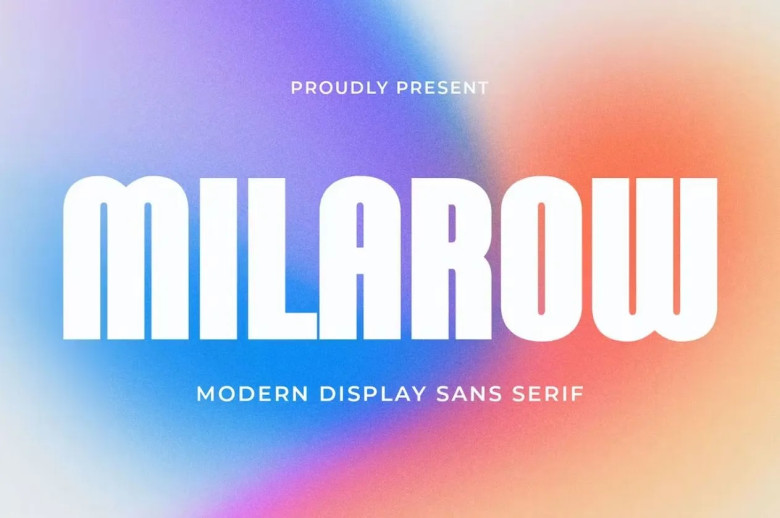
Milarow Font
Milarow Font is an elegant modern sans serif font designed specifically to be used for branding, logo design and invitations.
Milarow Sans Serif Font